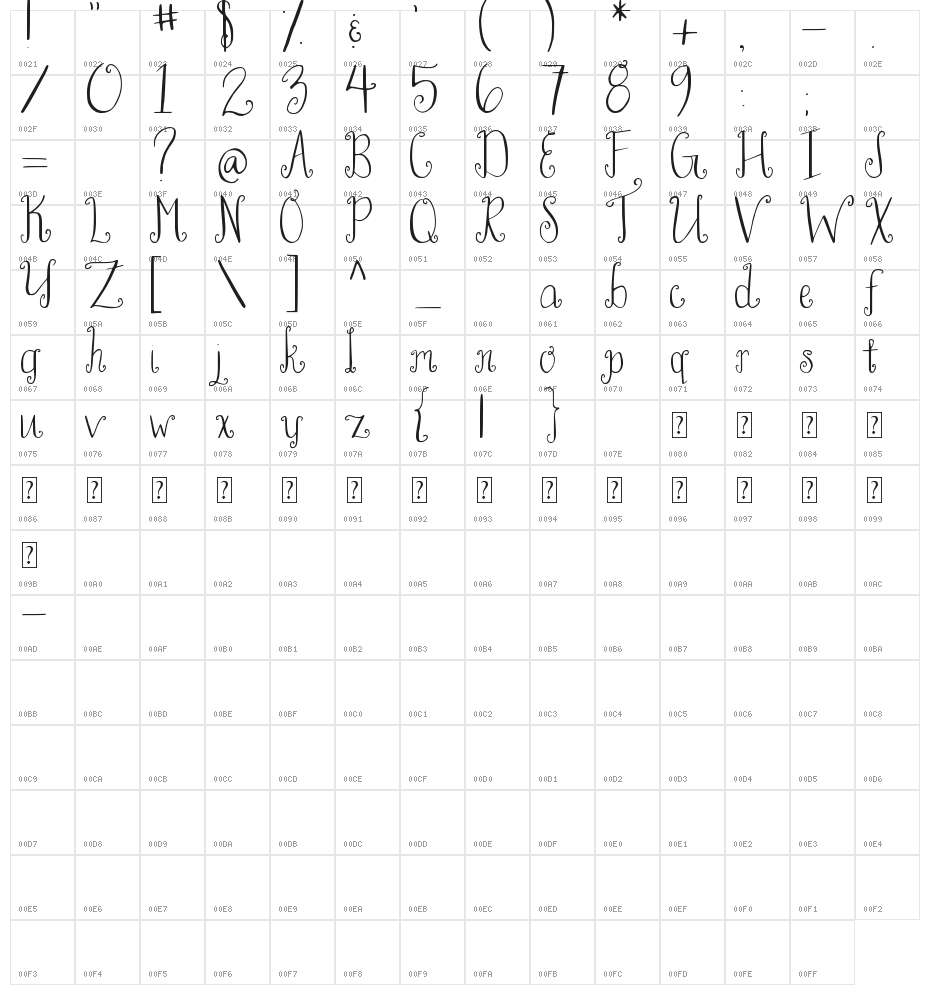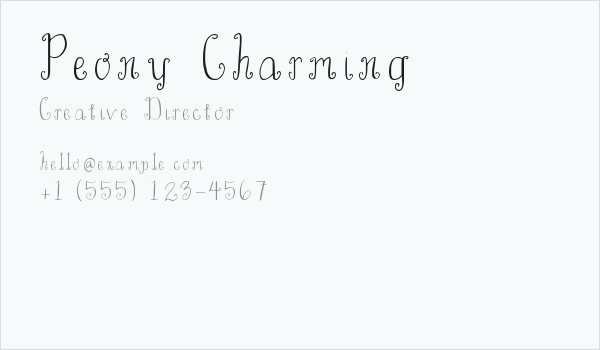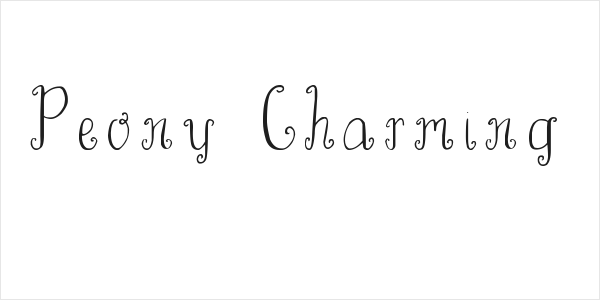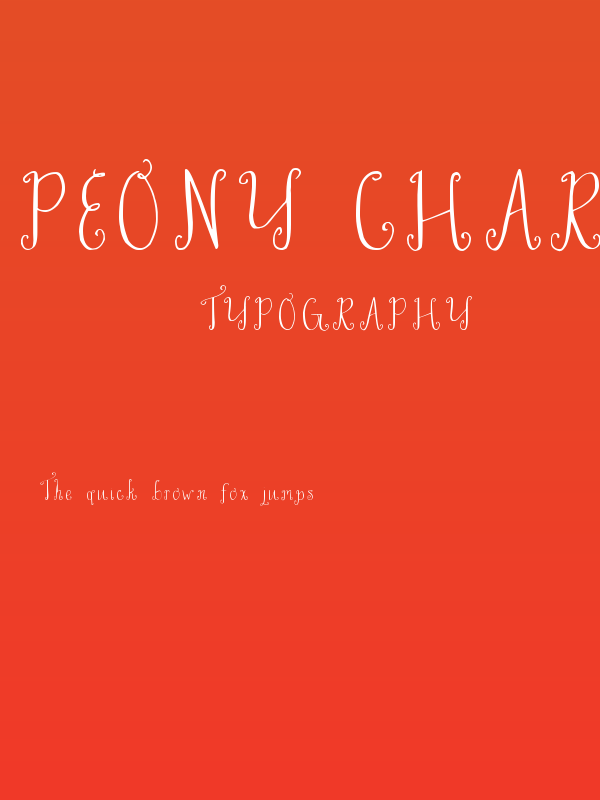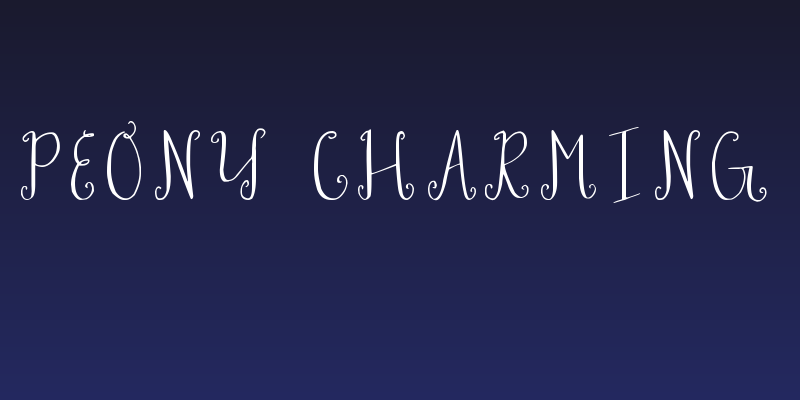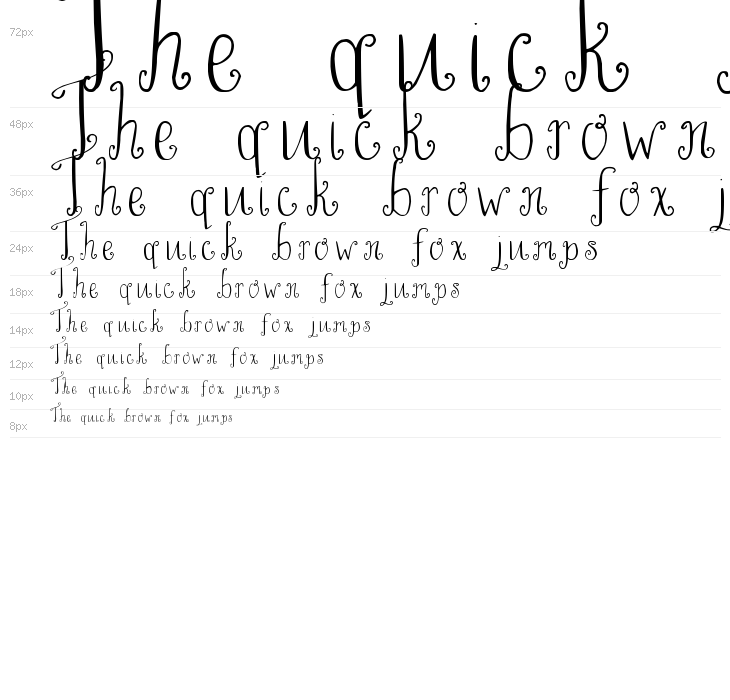
Peony Charming Font
Peony Charming Description
This font features a whimsical and playful design, characterized by its curly and decorative serifs. The uppercase letters are tall and elegant, with unique swirls and loops that add a touch of charm. The lowercase letters maintain a consistent style, with a slightly more subdued flair, making them easily readable while still retaining the font's playful nature. The numbers are distinct, with a slight variation in stroke thickness that adds to the overall quirky aesthetic. Special characters are creatively designed, fitting seamlessly with the rest of the typeface. This font exudes a sense of fun and creativity, making it ideal for projects that require a lighthearted and artistic touch.
| Proposed Projects | Perfect for greeting cards, children's books, playful branding, and creative invitations. |